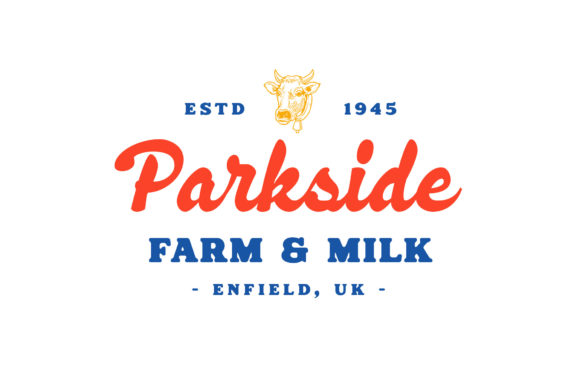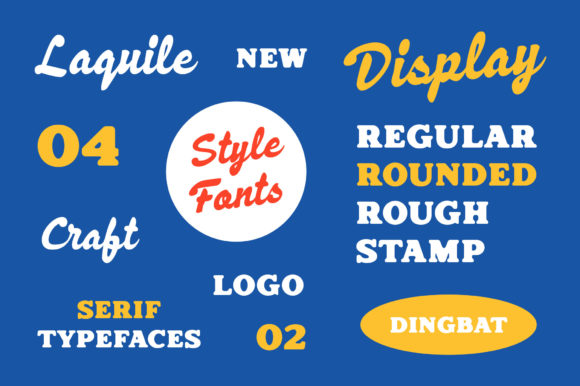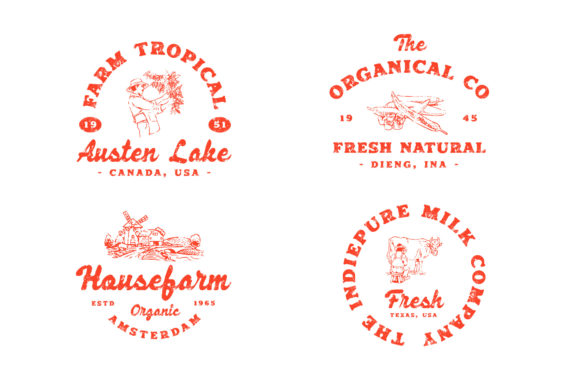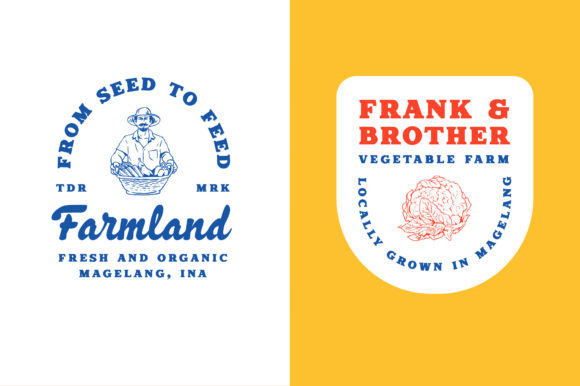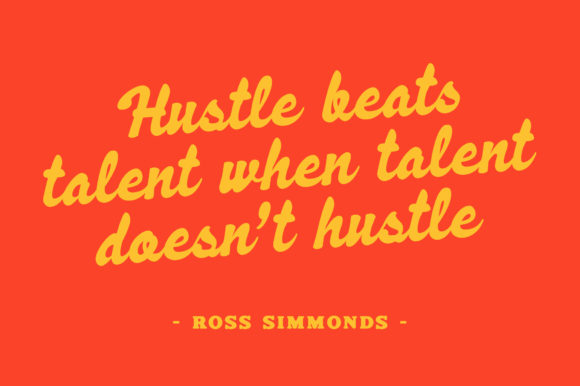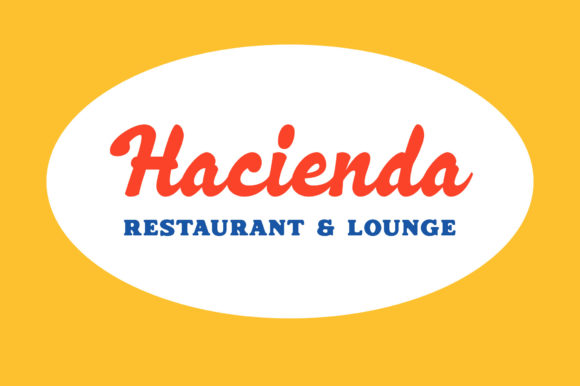
Introduction to Laquile Font
Have you ever stared at a blank canvas, waiting for inspiration to strike, only to have it hit you like a ton of bricks when you least expect it? That’s exactly what happened to many designers when they discovered the Laquile Font – a stunning display font family that’s perfect for logotype. This free download has been a game-changer for creatives working on various projects, from branding to packaging.
The Laquile Font collection is a treasure trove of high-quality fonts, each with its own unique style and flair. With script and serif fonts, as well as extra dingbats that resemble farm illustrations, designers have endless possibilities for their creative projects. Whether you’re working on a logo, poster, or label, the Laquile Font is sure to bring your design to life. Plus, with transparent backgrounds and a range of styles to choose from, it’s the perfect resource for any designer looking to elevate their work.
Key Features of Laquile Font
- High-quality design resource for creative projects, ideal for logos, branding, and typography.
- Available in a range of sizes, from 12 to 72 points, making it suitable for various design applications.
- Designed with a high-resolution (300 DPI) for crisp and clear display on various devices.
- Unique, elegant, and sophisticated design style, making it perfect for luxury brands, fashion, and high-end creative projects.
Honest Review: Laquile Font
I recently stumbled upon the Laquile Font while searching for a unique design resource for my creative project. The moment I downloaded it, I was impressed by its high quality and versatility. ✨
The Laquile Font offers a range of styles and weights, making it perfect for various design applications. I was able to easily customize the font to fit my design needs, and the transparent background feature allowed for seamless integration with my background images.
Here are some of the key features that work well:
- High-quality design with a unique aesthetic
- Range of styles and weights for customization
- Transparent background feature for easy integration
- Some users may find the font to be a bit too bold or overpowering
- The font does not support as many languages as some other fonts
Overall, I’m quite impressed with the Laquile Font. Its high-quality design and versatility make it a great addition to any designer’s toolkit. With a bit of creativity, I was able to overcome the limitations and achieve the desired look for my project. If you’re looking for a unique font for your next creative project, the Laquile Font is definitely worth checking out.
Tips for Getting the Most Out of Laquile Font
For best results, use Laquile Font on a transparent background to create a visually appealing design. Experiment with different font sizes and styles to find the perfect combination for your creative project.
Laquile Font is perfect for creating social media graphics, presentations, and documents. Its high-quality design and transparent background make it an excellent choice for designers looking for a reliable design resource.